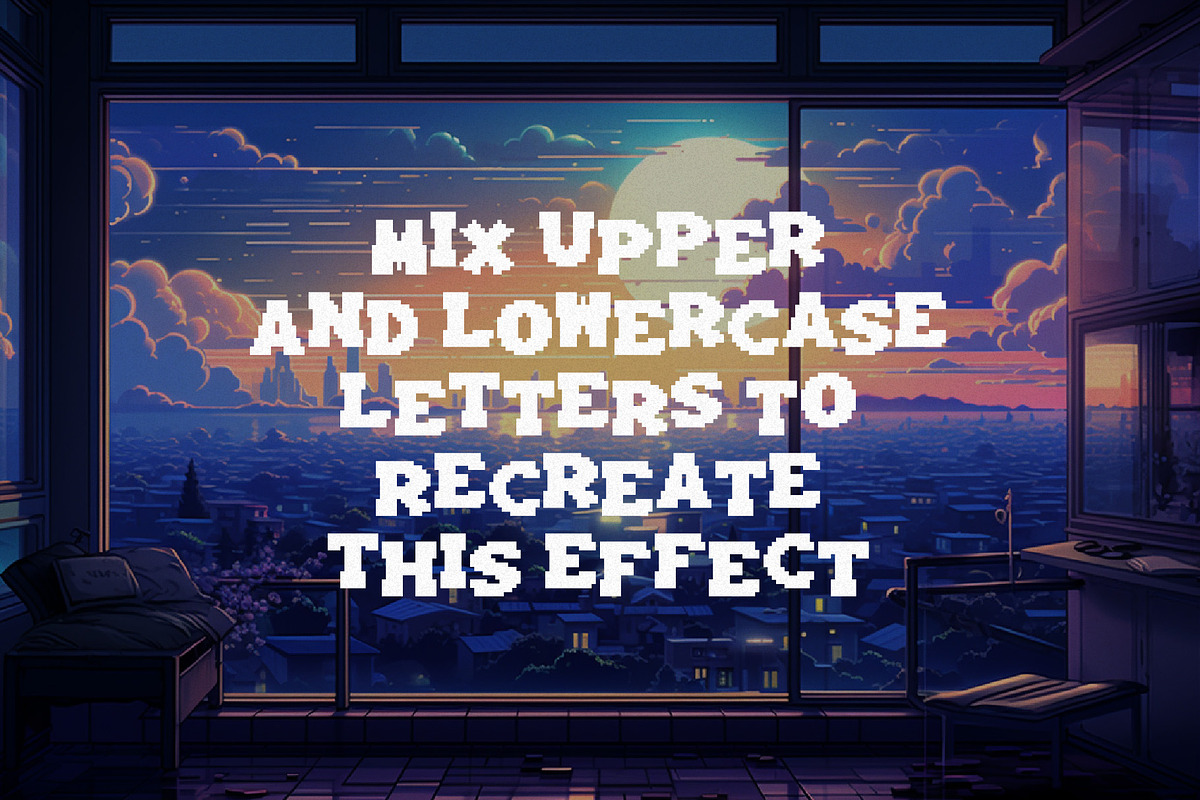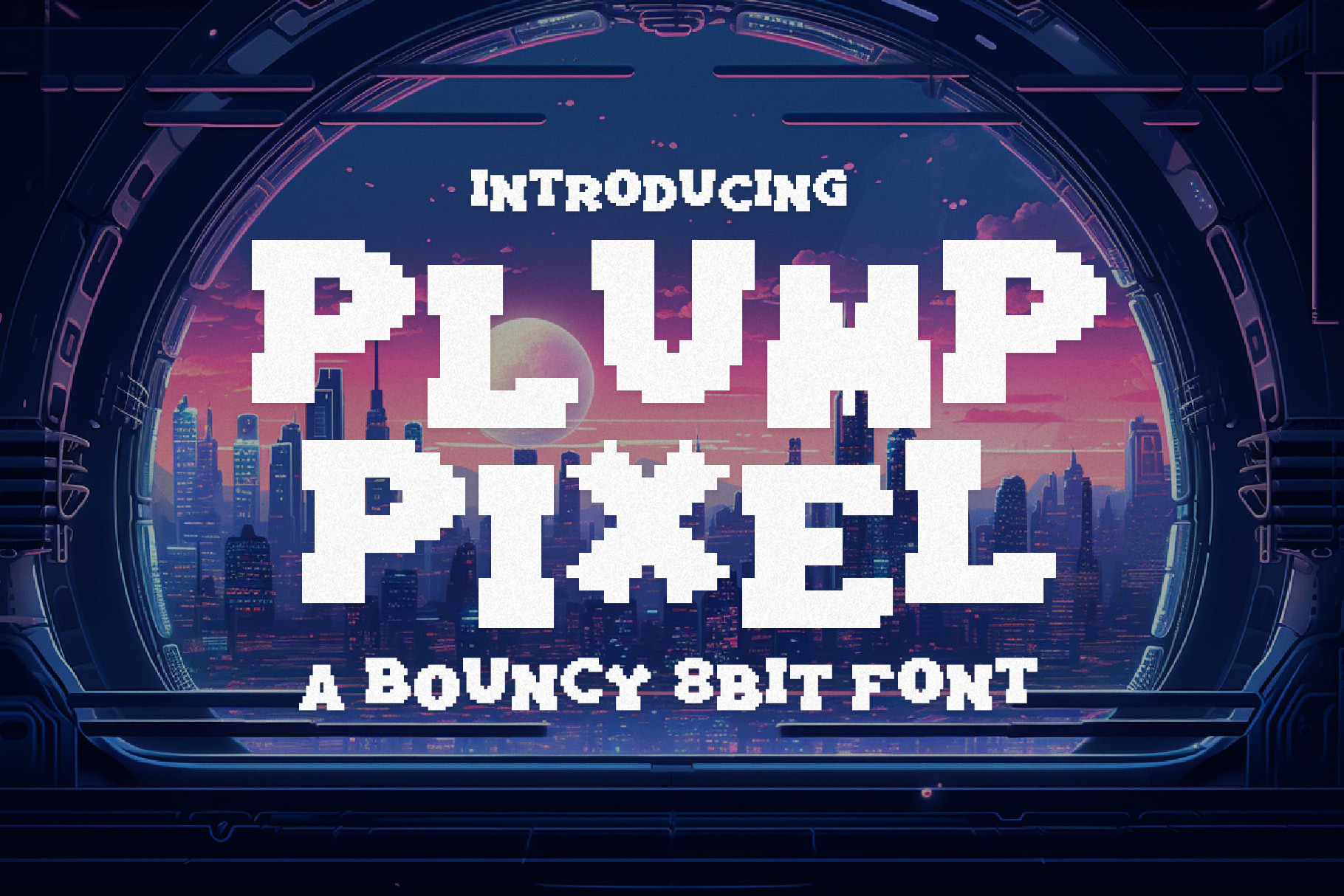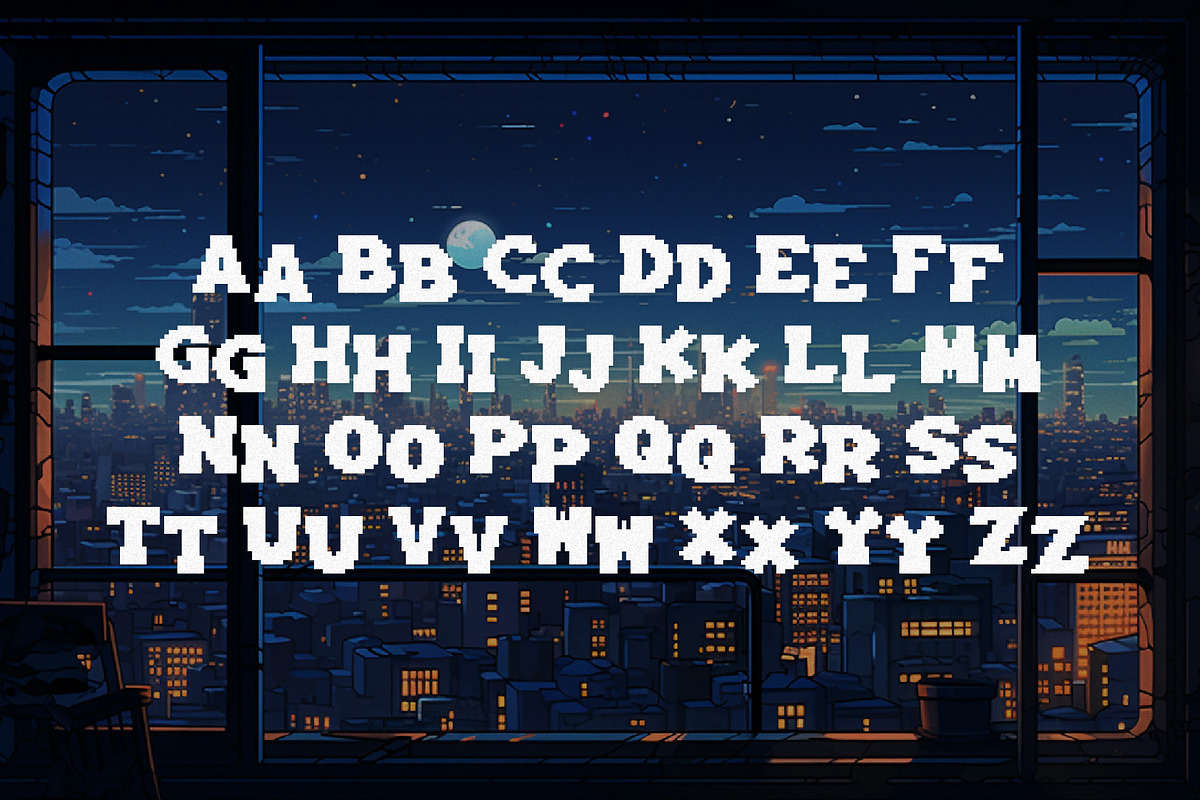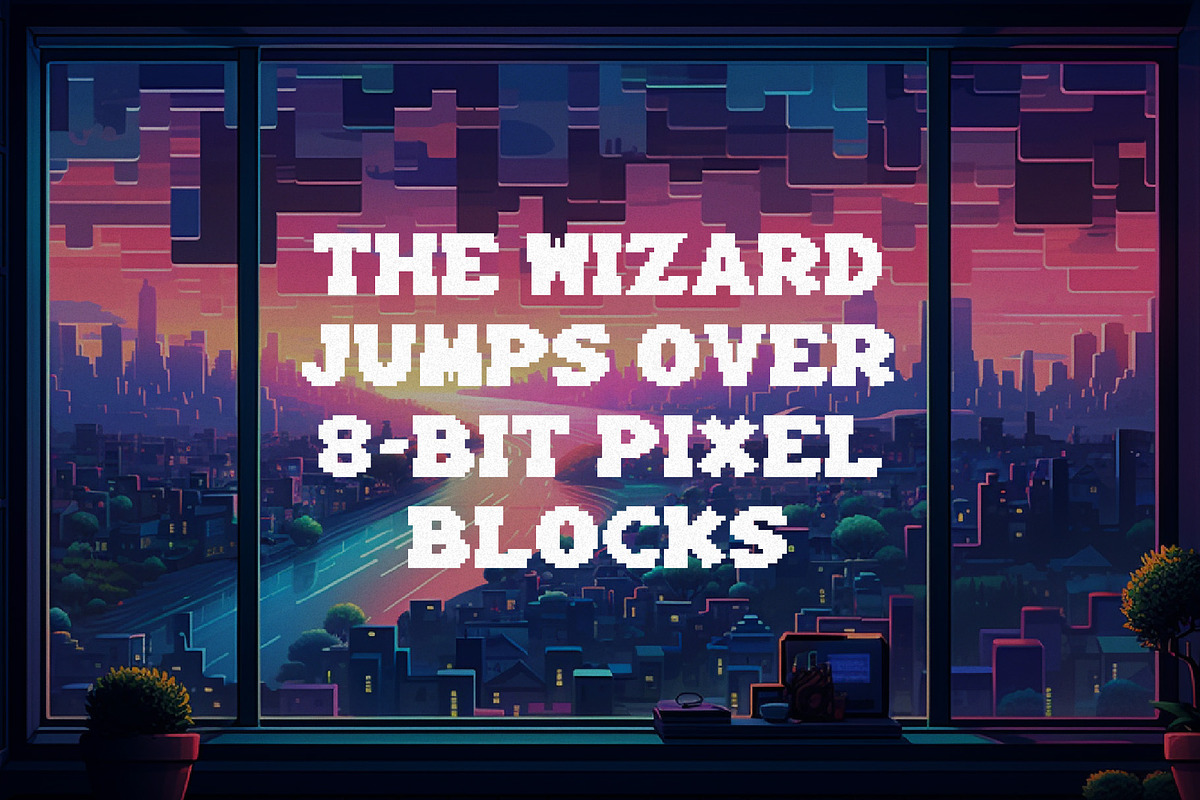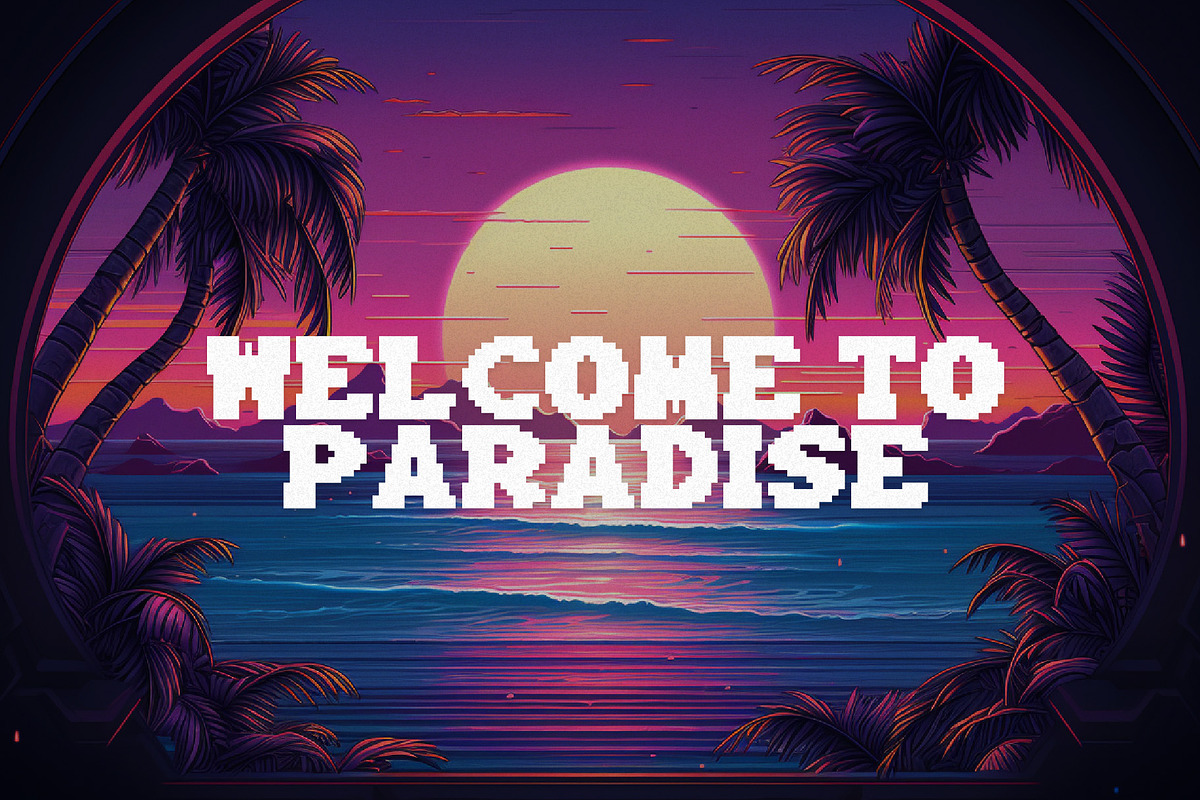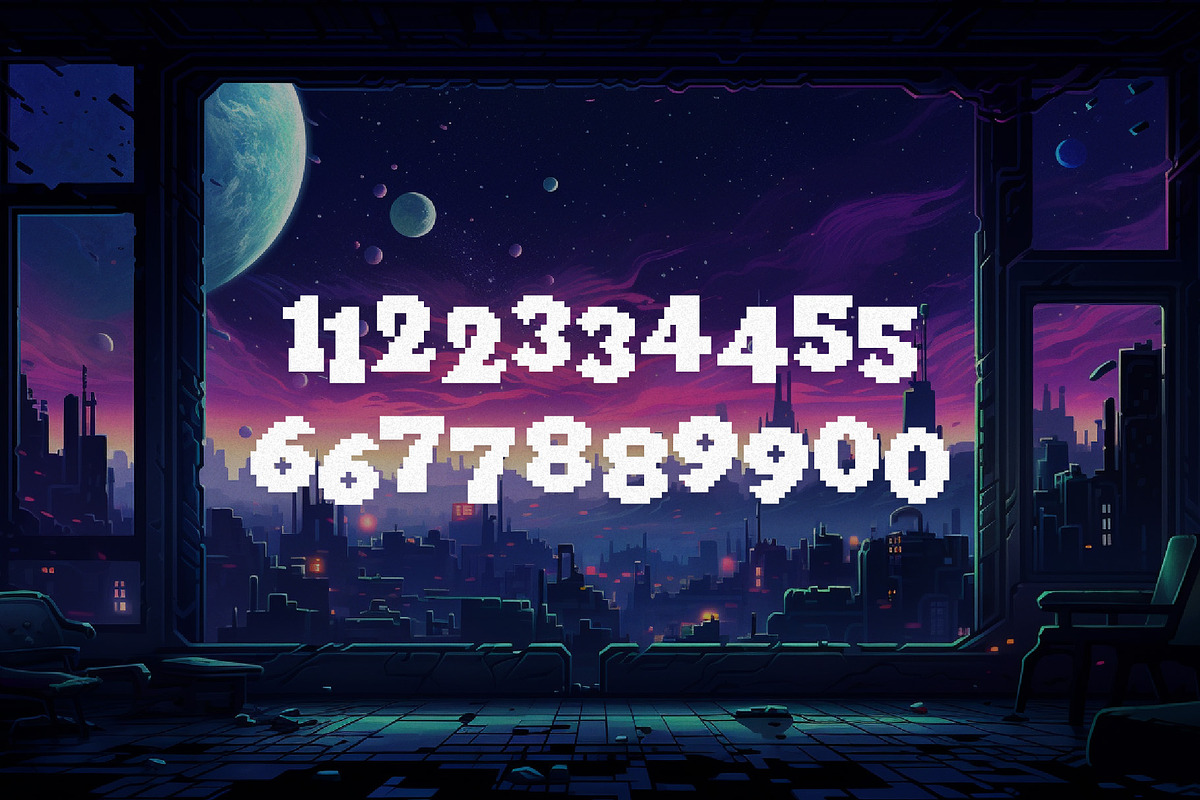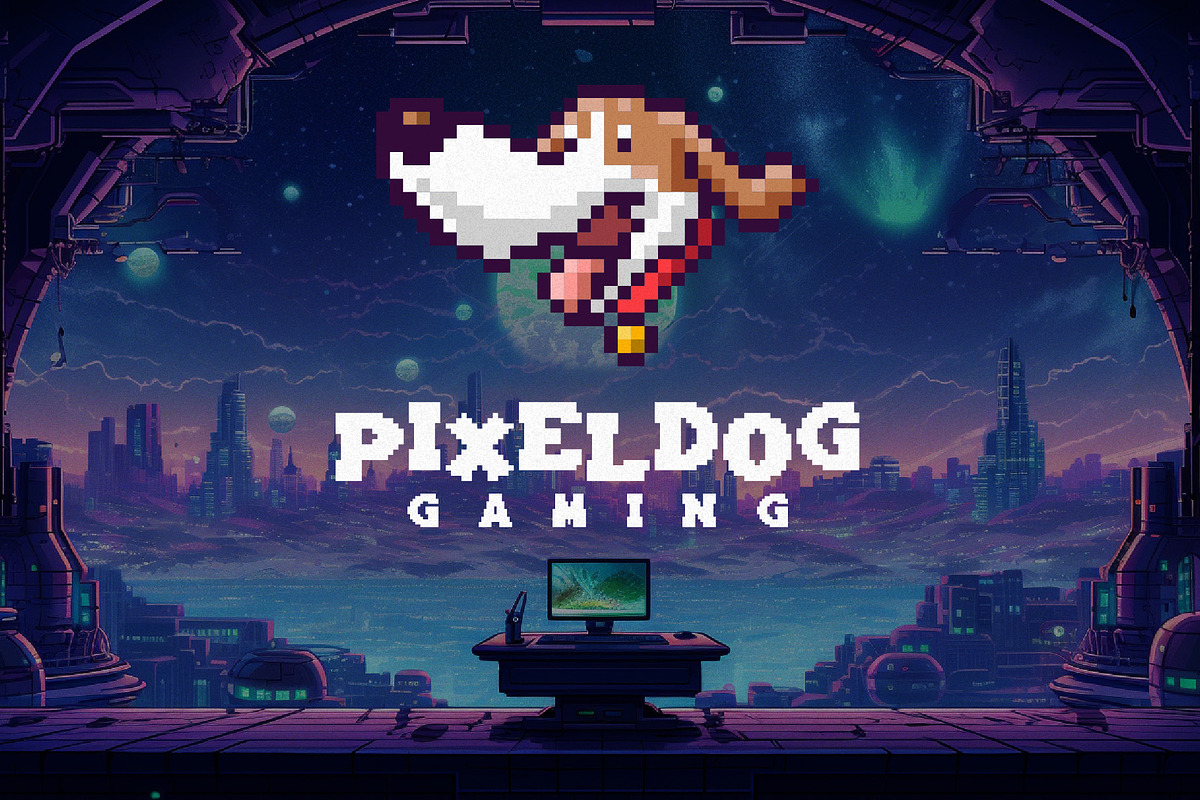
Plump Pixel - Bouncy 8Bit Font
Welcome to the delightful world of Plump Pixel, the bouncy 8-bit pixel video game font that injects an explosion of joy and playfulness into every character.
With each letter meticulously crafted to embody a chubby and adorable appeal, this font exudes an irresistible charm that instantly tugs at your heartstrings. As you type, your words come alive with a vibrant energy, bouncing and dancing across the screen, creating an immersive and engaging experience reminiscent of classic arcade games.
Plump Pixel invites you to dive into a nostalgia-fueled adventure where retro meets contemporary, where the fusion of crisp pixels and a buoyant spirit unites to form a truly extraordinary font that elevates any gaming or design project.
Embrace the whimsical journey, and let your text embark on a captivating odyssey through the enchanting realm of Plump Pixel!